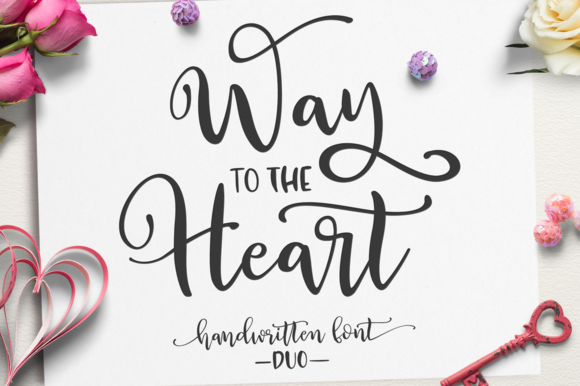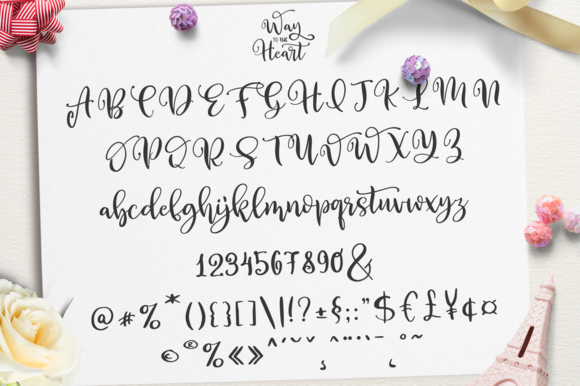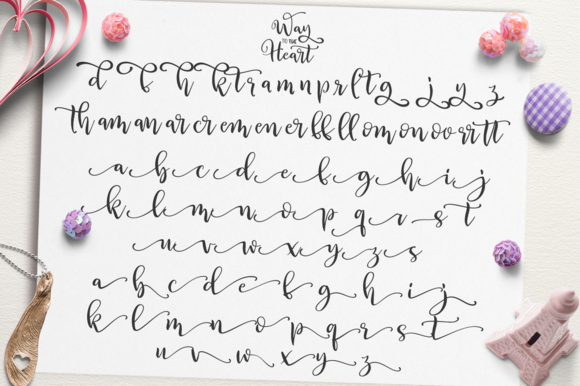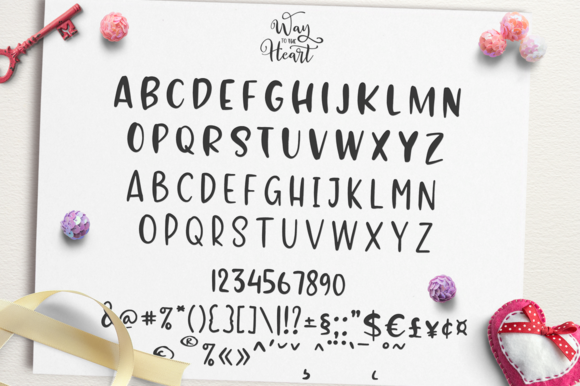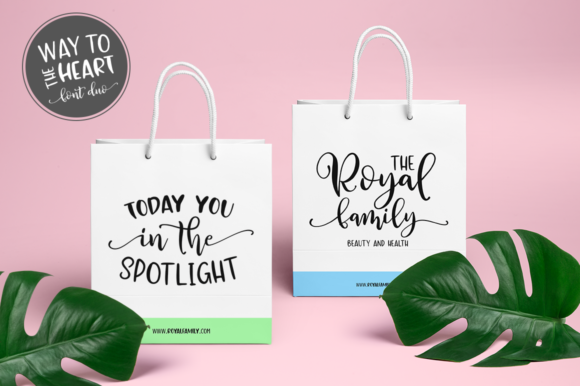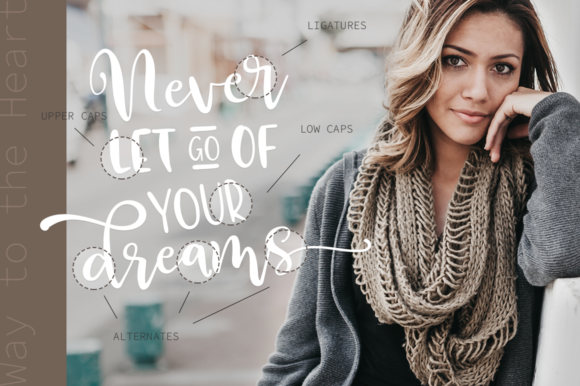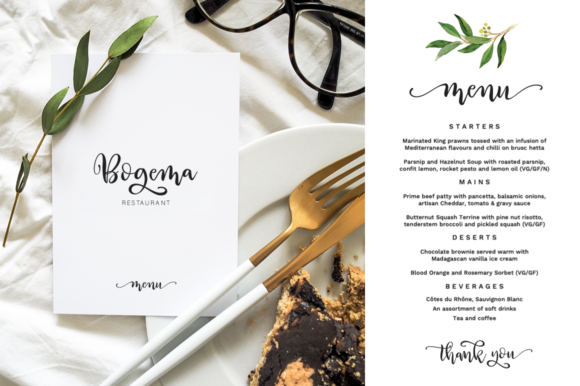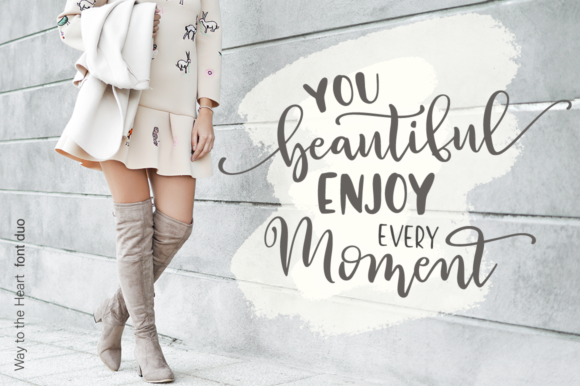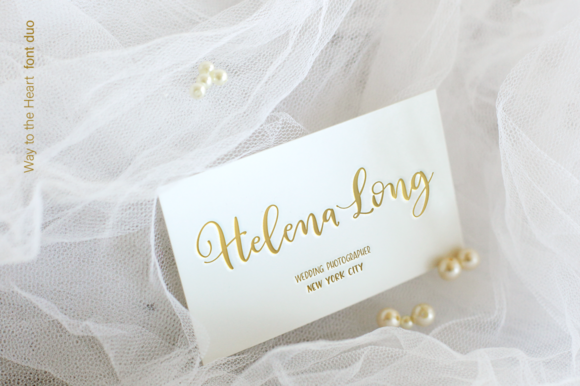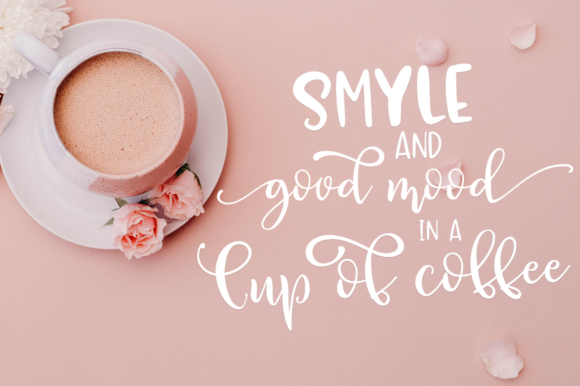
Way to the Heart Duo Font
About Way to the Heart Duo Font
The Way to the Heart is a sweet handmade font. Its elegant feel is ideal for branding and decorating your projects.